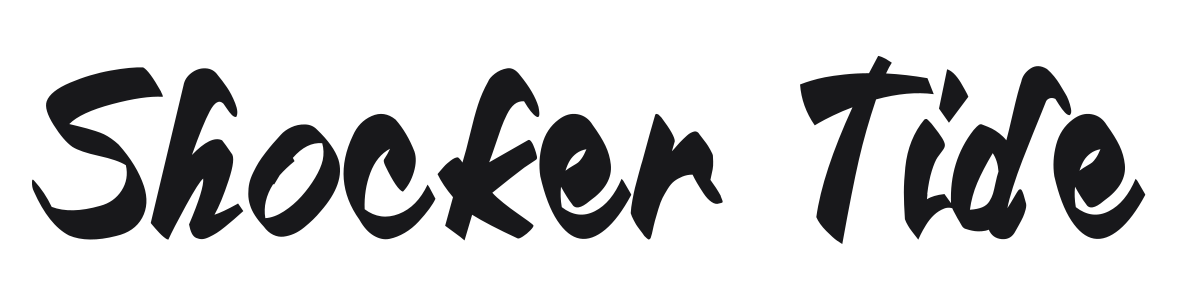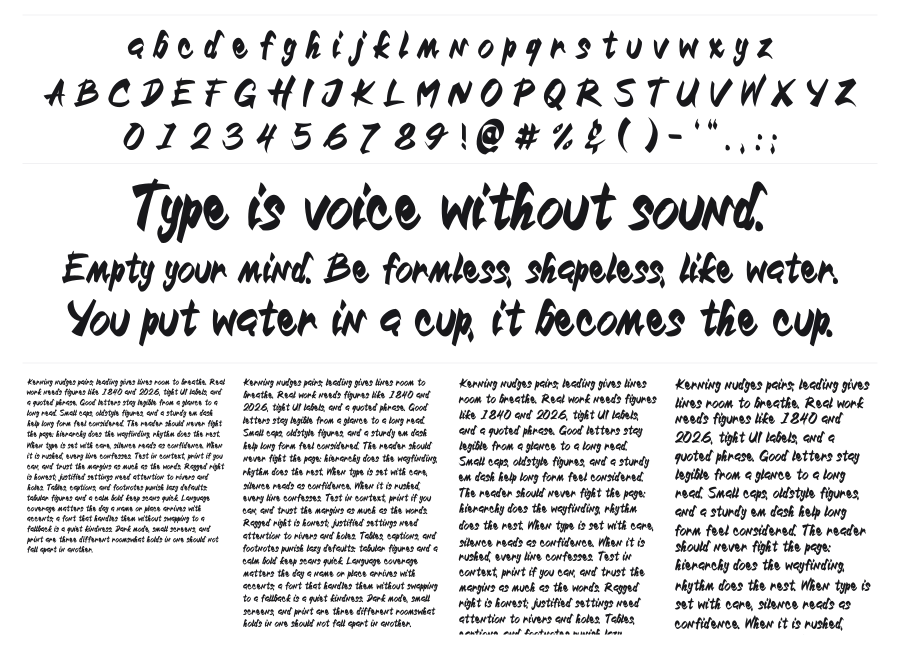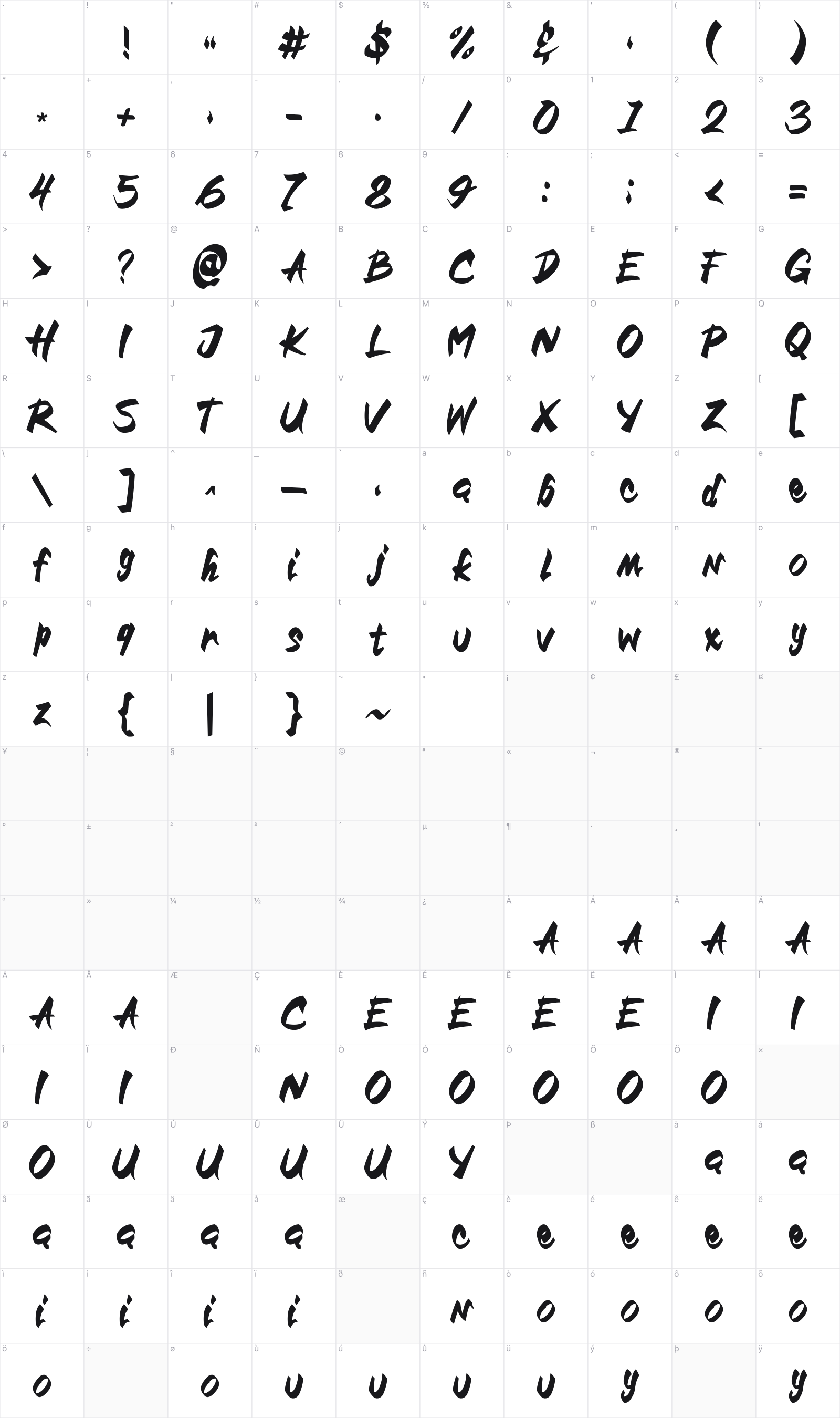
Shocker Tide
Shocker Tide is a bold graffiti-style brush script with raw, slashing energy drawn from street-art and marker lettering traditions. Thick stems taper into thin connecting strokes, giving each word a dynamic, hand-made rhythm. The forward-leaning posture and irregular weight variation keep it feeling authentic rather than polished.